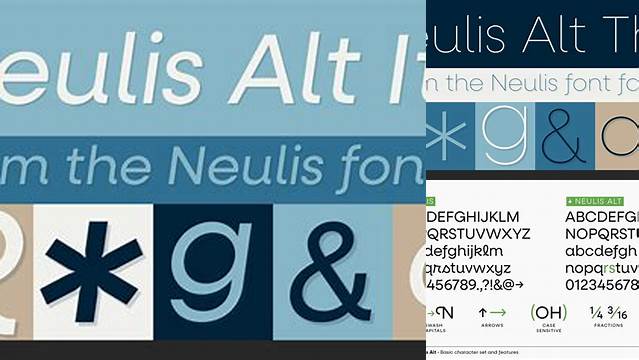
Alright, guys, let's dive into the world of fonts, specifically the super cool Neulis Alt Font! If you're anything like me, you're always on the hunt for that perfect typeface to make your designs pop. And what's better than a fantastic font? A fantastic font that's also free to download! This article is your ultimate guide to everything Neulis Alt Font, from where to snag it for free to how to use it like a pro. We'll explore its unique characteristics, compare it to other fonts, and give you the lowdown on all the creative possibilities it unlocks. So, buckle up and get ready to transform your designs with the amazing Neulis Alt Font. Let's get started!
Neulis Alt Font: Unveiling the Design and Aesthetics
Let's get down to the nitty-gritty, shall we? Neulis Alt Font is a modern, versatile typeface known for its clean lines, geometric shapes, and a touch of minimalist flair. It's designed with a focus on readability, making it perfect for both headlines and body text. The design of Neulis Alt Font is all about simplicity and elegance. Its letterforms are carefully crafted to create a harmonious visual experience. You'll notice the attention to detail in the precise curves and angles of each character. It's got that contemporary vibe that's super trendy right now, while still maintaining a timeless quality that will keep your designs looking fresh for years to come. The designers of Neulis Alt Font clearly put a lot of thought into its kerning and spacing, which means the letters flow together beautifully, making it a joy to read. Whether you're crafting a sleek website, a professional presentation, or a captivating poster, Neulis Alt Font has got you covered. The font's versatility allows it to adapt to various design styles, from corporate branding to personal projects. One of the things that make Neulis Alt Font stand out is its ability to work well in both large and small sizes. This is super important because it means you can use it for everything from giant headlines to tiny captions without losing readability. Furthermore, it offers a range of weights, allowing you to add emphasis and visual interest to your text. This is a game-changer when it comes to creating visually appealing designs. The font's clean and modern appearance makes it ideal for a wide range of applications, from web design to print materials. With its various weights and styles, Neulis Alt Font provides designers with the flexibility needed to create unique and eye-catching designs. Basically, it's a designer's dream come true!
Understanding the Key Features of Neulis Alt
Let's break down the key features that make Neulis Alt Font so special, shall we? First off, the font family typically boasts a variety of weights, from light and thin to bold and heavy. This gives you a ton of control over the visual impact of your text. You can use the lighter weights for a delicate, airy feel, while the bolder weights are perfect for making a statement. The font is also available in different styles, such as italics, which add a touch of elegance and dynamism. Neulis Alt Font is designed to be highly readable, even at smaller sizes. This is crucial for things like body text, where clarity is key. The characters are well-defined, and the spacing is optimized to prevent words from blending together. Another great feature is its support for multiple languages. A well-designed font supports a wide range of characters, including accents and special symbols, to accommodate various languages. It's also optimized for both print and digital use. It looks amazing on the screen, but it also prints beautifully, making it ideal for all kinds of projects. The font's clean lines and modern aesthetic make it a great choice for both professional and personal use. The design is versatile enough to be used in a variety of contexts, from websites and apps to posters and presentations. Its sleek and contemporary look makes it a popular choice among designers. In addition, the font is often available in various formats, such as TrueType and OpenType, which are compatible with most design software. And let's not forget about the licensing. While you're looking for a free download, always be sure to understand the license terms. Make sure you're clear about how you can use the font for personal or commercial purposes.